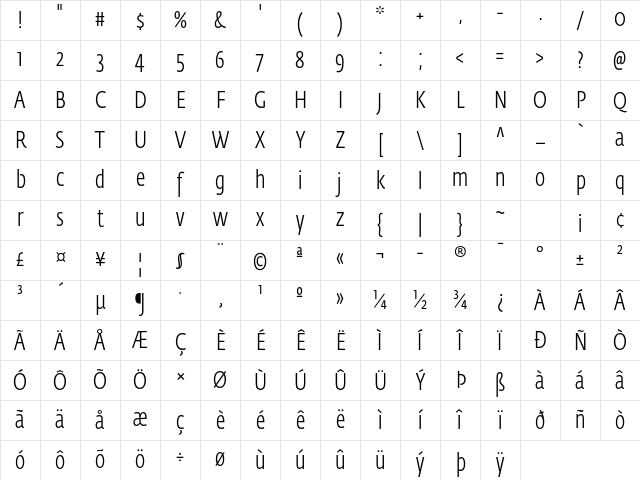
Complete Fedra Sans Condensed Std Light glyph index. Displaying only characters natively supported by Fedra Sans Condensed Std Light font.
Fedra Sans Condensed Std is a composed and adaptable typeface that performs quietly and consistently across a wide range of design contexts. Its slender proportions lend an understated elegance to any composition. Its narrow stance lets it pack a punch even in space-constrained designs.